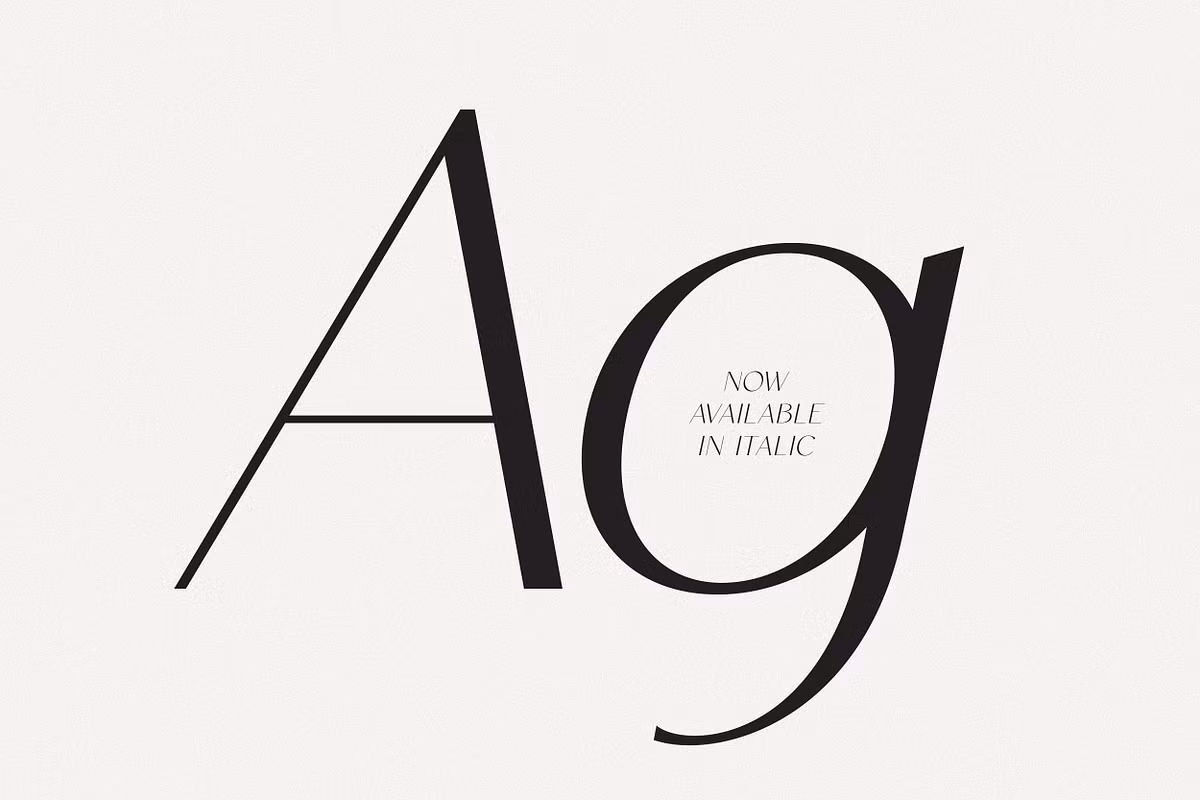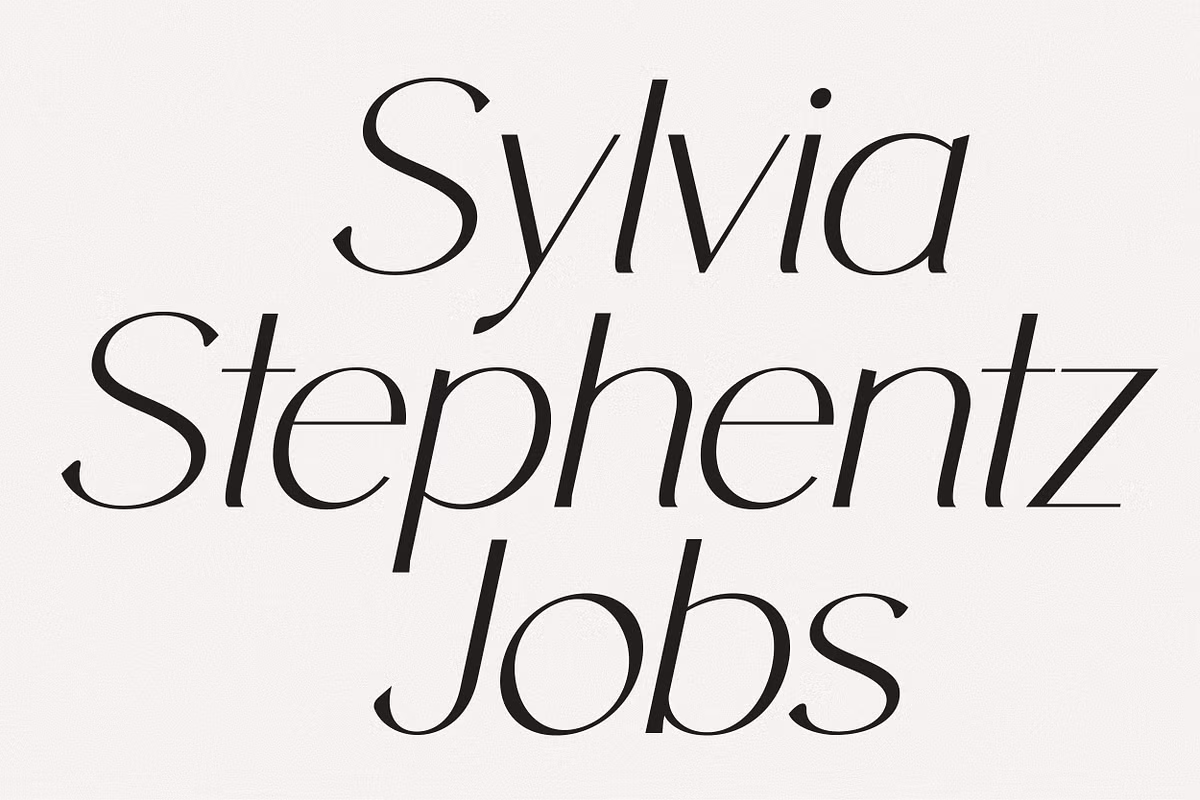
Clio – Clean Display Sans: Elegant Typeface for Modern Design Projects
Introduction to Clio Typeface
Clio is a simple yet elegant display sans serif typeface that’s perfect for modern design projects. It was updated on April 18, 2022, and now has some great new features, including an italic version called Clio Italic. The designers focused on making it look clean and sleek, which makes it great for lots of different uses, like logos, magazine titles, and lifestyle branding.
Whether you’re working on a big project or just need a font that looks good, Clio is a great choice because it’s versatile and easy to use. It’s a valuable tool for any designer to have in their collection. With its clean lines and elegant style, Clio can help you create designs that look modern and sophisticated.
Design Style of Clio
The design of the Clio typeface prioritizes clarity and visual elegance. With its clean lines and balanced proportions, Clio offers a contemporary look that can elevate any design project. The typeface is characterized by:
- Simple Geometry: Clio’s letters are designed with geometric shapes that contribute to its modern appearance.
- Visual Harmony: Each character is crafted to ensure visual balance, making it easy on the eyes and enhancing readability.
- Elegant Curves: The typeface features smooth curves that add a touch of sophistication, particularly in its italic variant.
Overall, Clio captures a sense of modernity while maintaining a timeless elegance, making it suitable for a wide range of design projects.
Character Sets and Ligatures
Clio is a great choice for projects that need to reach people who speak different languages, because it has all the letters and symbols needed for European languages. It also has something called ligatures, which are like special connections between letters that make text look nicer and easier to read.
These ligatures are really useful in typography, because they help the text flow better and can even make it more readable. This means that when you use Clio, your text will not only look good, but it will also be easier for people to understand, which is especially important for projects that need to be read by people from different countries.
Use Cases for Clio Typeface
Clio is designed with a variety of applications in mind, making it an ideal choice for numerous design projects. Here are some specific use cases:
- Branding and Logos: Clio’s clean aesthetic is perfect for creating memorable logos that stand out in a crowded marketplace.
- Editorial Design: Whether for magazines, newspapers, or online publications, Clio provides a sophisticated look for headlines and body text alike.
- Marketing Materials: From brochures to social media graphics, Clio can enhance the visual appeal of promotional content.
- Web Design: Its modern and clean appearance makes Clio an excellent choice for website typography, ensuring readability and style.
Each of these use cases allows designers to leverage Clio’s unique features to create impactful visual communications.
Pairing Suggestions for Clio
When it comes to typography, pairing fonts effectively is crucial for creating a cohesive design. Here are a few pairing suggestions for Clio:
- Clio and Serif Fonts: Pairing Clio with a classic serif font can create a striking contrast. For example, using Clio for headlines and a serif font like Times New Roman for body text can add sophistication and elegance.
- Clio and Script Fonts: When you want to add a bit of fun to your design, think about pairing Clio with a script font like Pacifico. This combo is perfect for creative projects, like making wedding invitations or coming up with a brand identity that’s really artistic.
- Clio and Monospace Fonts: For a contemporary tech feel, using Clio alongside a monospace font like Courier New can provide a modern and organized appearance, suitable for digital platforms.
These pairings can help you achieve a balanced and visually appealing design, enhancing the impact of your projects.
Whether you’re making a logo, laying out a magazine, or building a website, Clio can help you get a polished and sophisticated look. Its modern style and thoughtful design make it a valuable resource for anyone who wants to elevate their design projects.
With Clio, you can create something that really looks great and helps you get your message across. It’s a great choice for designers who want to make a good impression and create something that will really grab people’s attention.